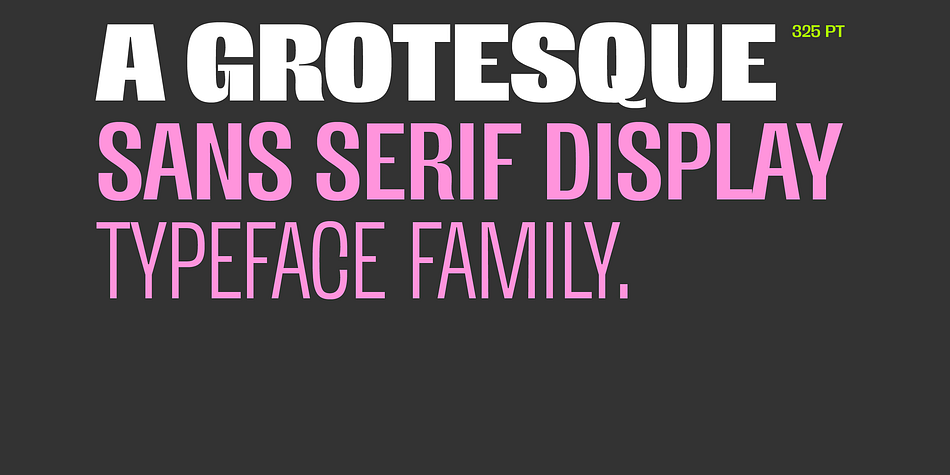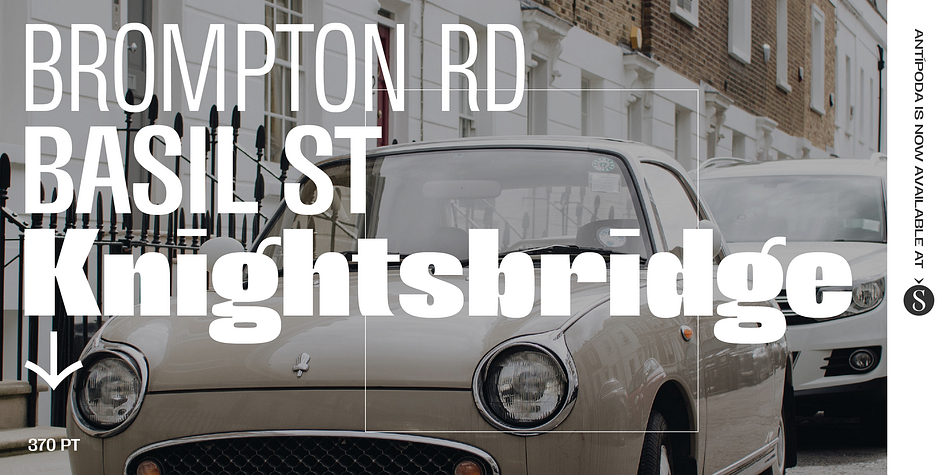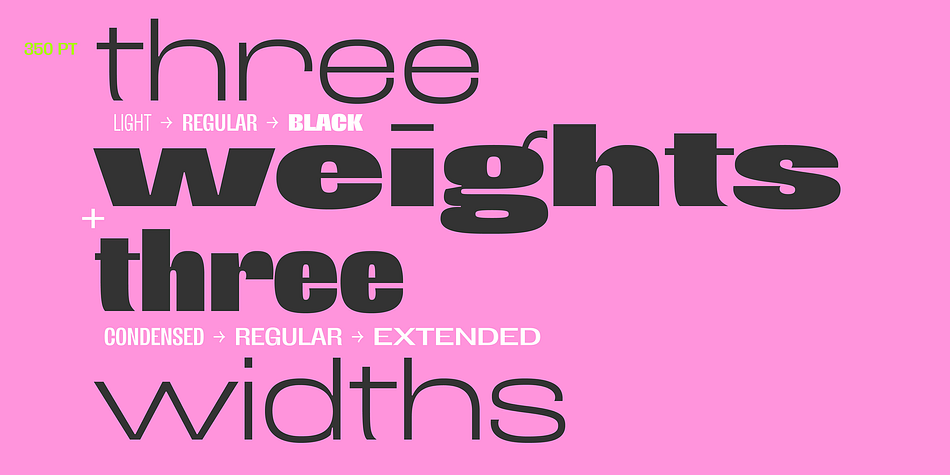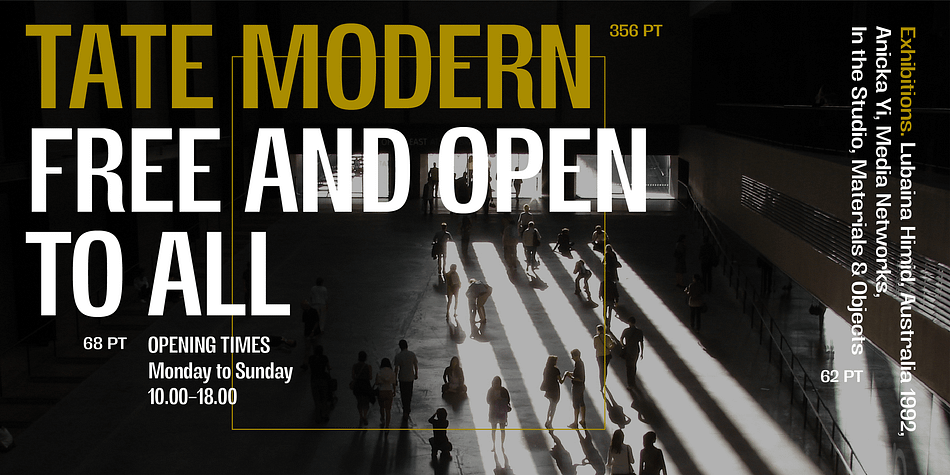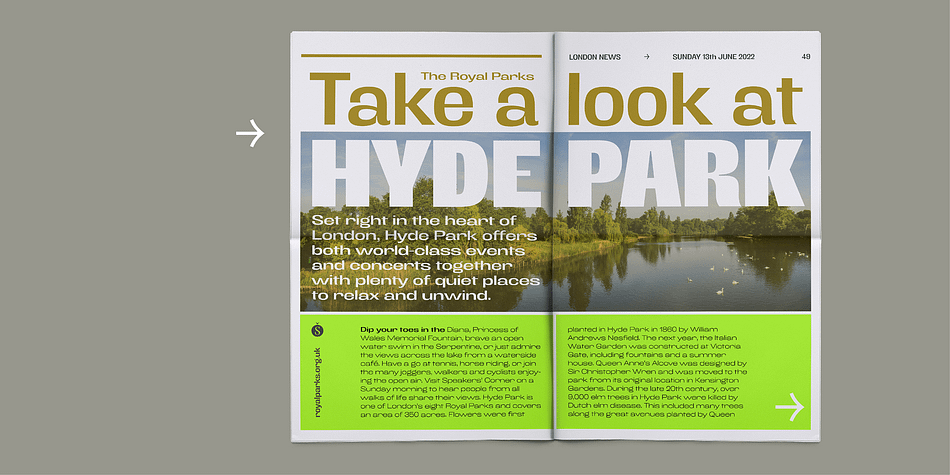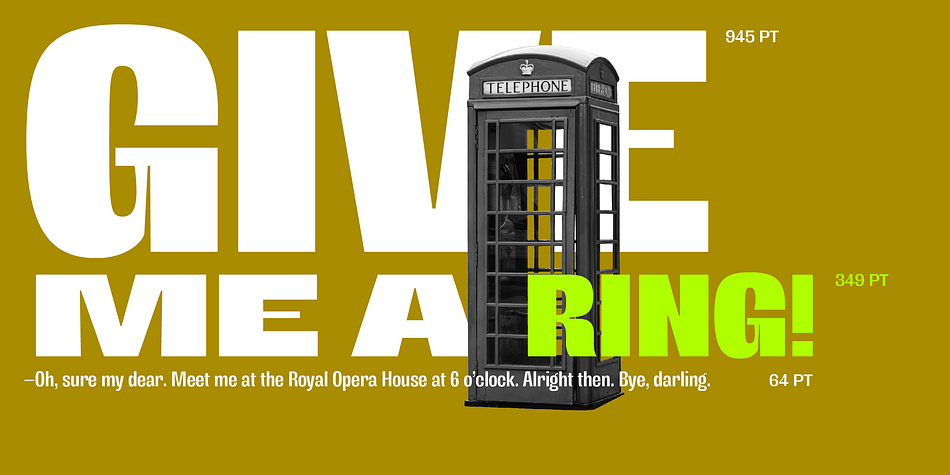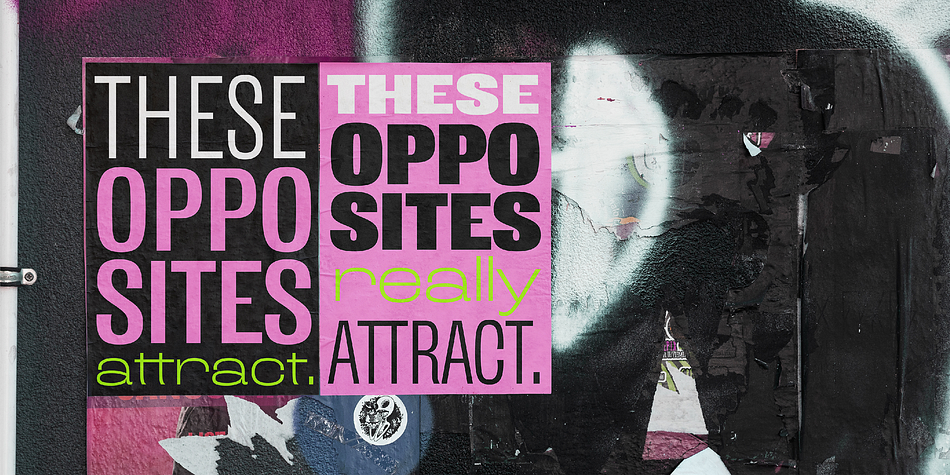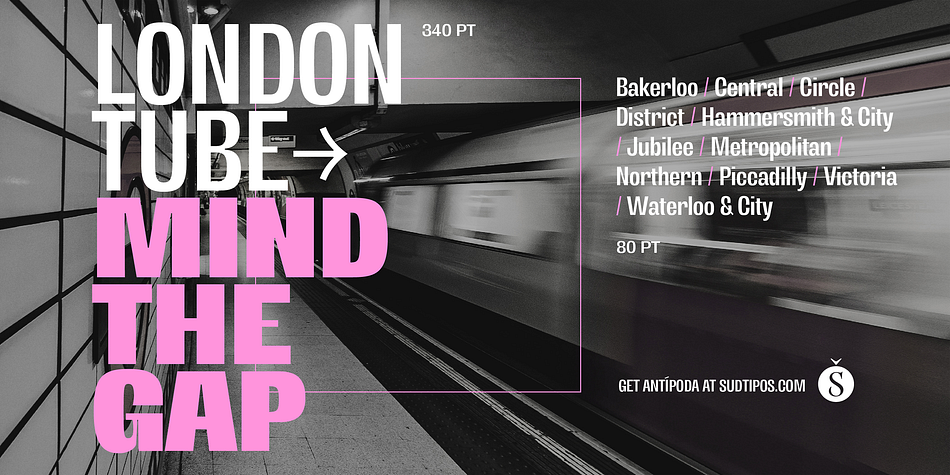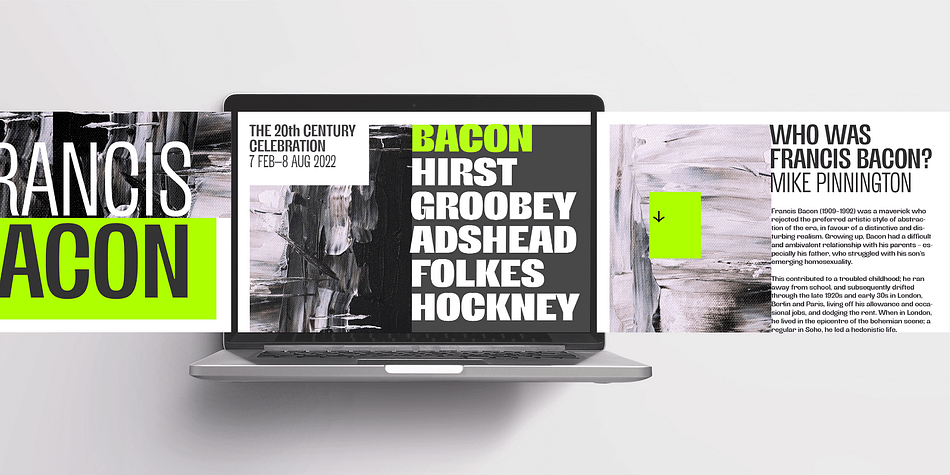
Designed by Maria Mazzitelli, Antipoda is a sans serif font family. This typeface has ten styles and was published by Sudtipos.
We are proud to announce the release of Antípoda, a grotesque sans serif display family designed by María Carla Mazzitelli and published by Sudtipos that explores the opposites, obtaining very extreme weights and widths as a result. The program rehearses contrasting letterforms that are inspired by the origins of sans serif typefaces from the late 19th century.
Ideally intended for large sizes and short reading, Antípoda provokes, proposes strong visual impact and power, seeks to captivate with its strength and forcefulness. Ultimately, it celebrates the attraction of the opposites.
The typeface family includes a Latin Extended set, 3 weights and 3 widths, and a Variable Font to freely choose weights and proportions as needed.